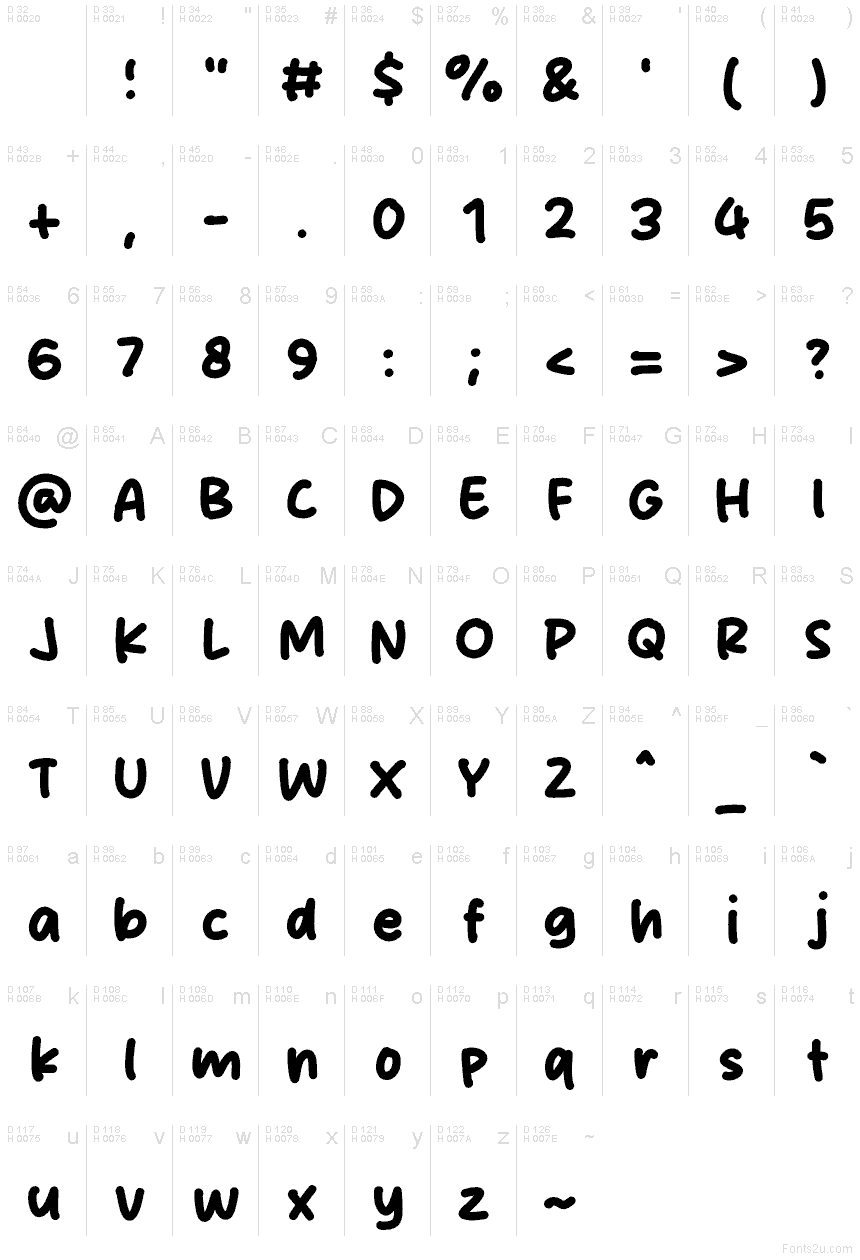
Hello Picko
Hello Picko font by Origin Type is a free handwritten typeface that feels squishy and inky, like a bold marker gliding over smooth paper. The rounded forms, even weight, and gentle bounce give it a warm, chatty voice that’s easy to read at a glance—friendly without getting messy. It brings personality in a single stroke, turning simple words into bright, approachable moments.
Using Hello Picko, your titles and tags pop on kids’ posters, craft labels, bakery menus, social stickers, YouTube thumbnails, and playful packaging. The rhythm is steady, the spacing forgiving, so short phrases land clearly and with charm. This free font works beautifully set big; for supporting text, pair it with a crisp geometric sans to keep layouts tidy and upbeat.